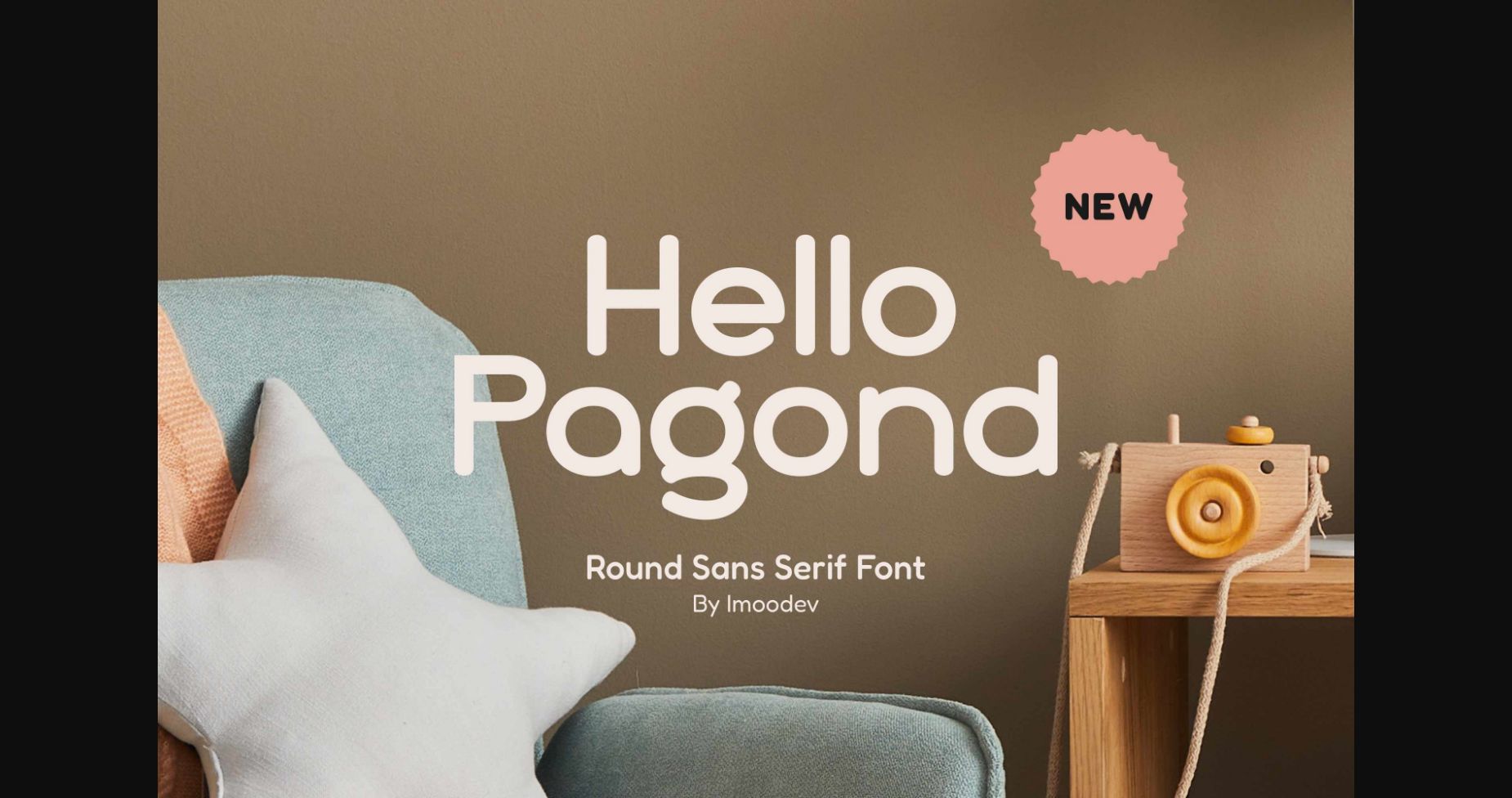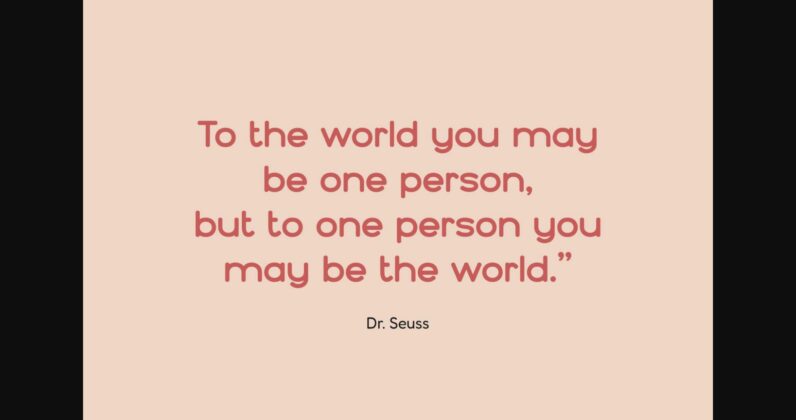
About Hello Pagon Font
Hello Pagon is a rounded font that has smooth curves and a visual style a can embodies charm and elegance in every lettering, making your work look stunning and attractive.
A versatile font that works in both uppercase and lowercase sizes, suitable for a wide variety of projects such as a display font for heading, logo font, invitations, branding, magazine, card, product packaging, product mockup, mug, poster, labels, editorial, art deco, film, video, and any type of advertising purpose.